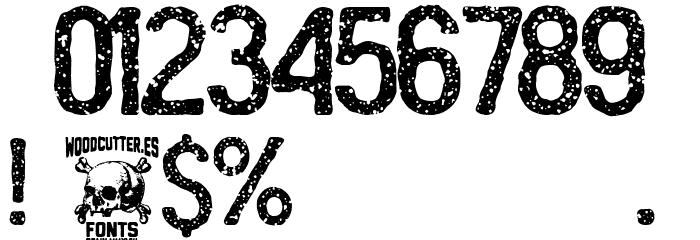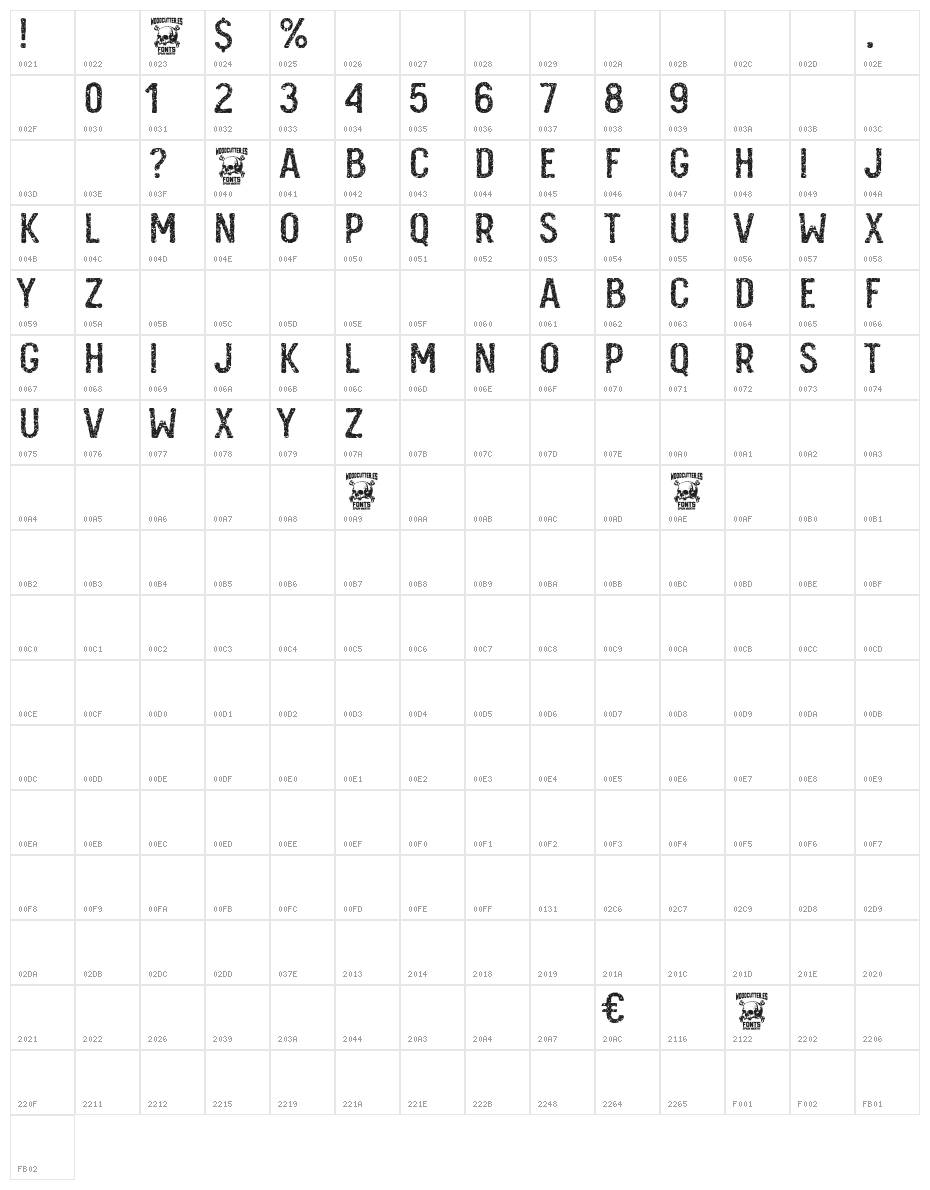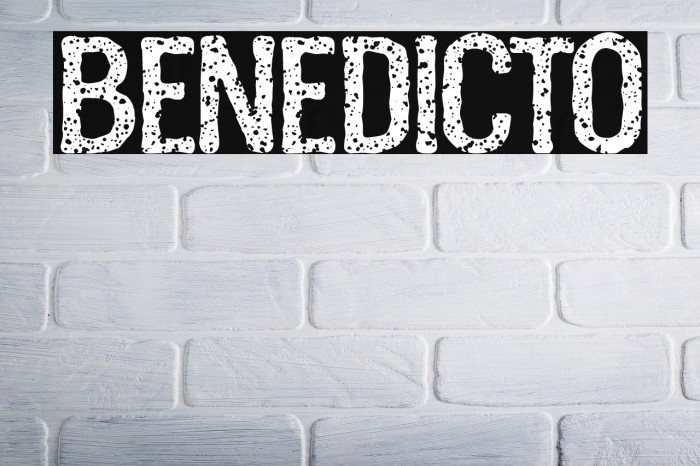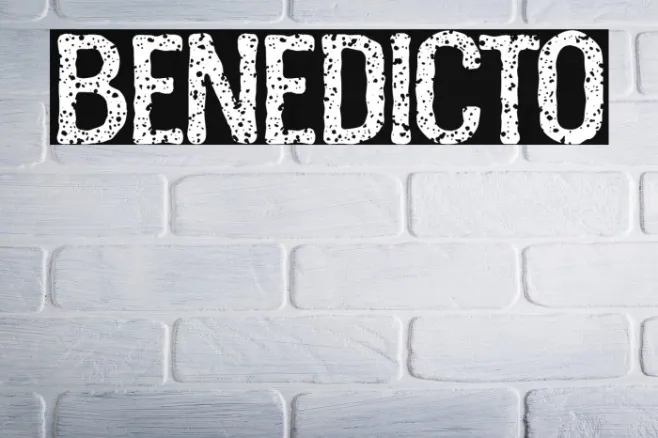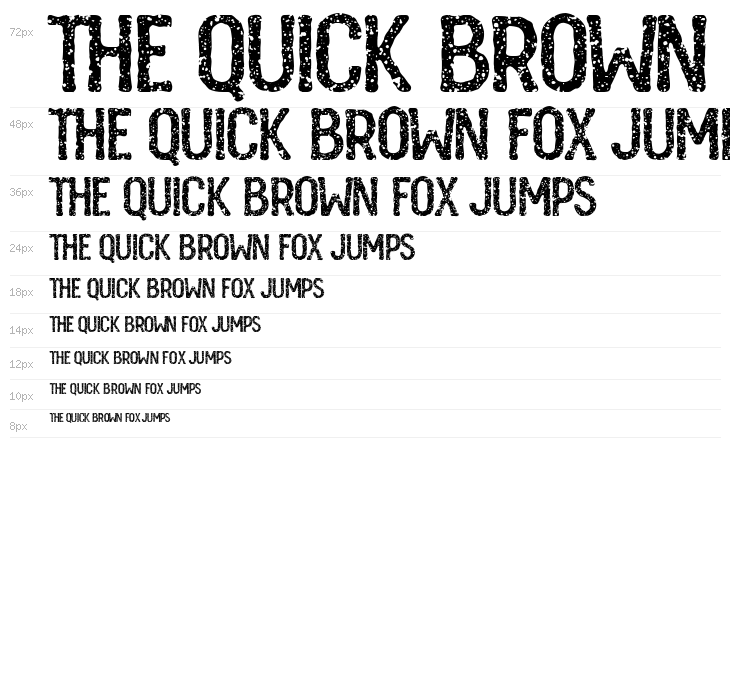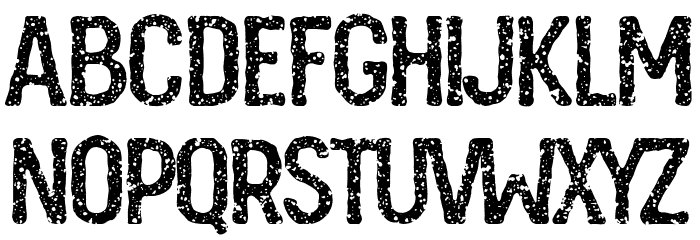
Benedicto Font
Benedicto Description
This font features a bold, textured style with a distressed appearance, giving it a rugged and vintage feel. The characters are uniformly bold, with a speckled pattern that adds a unique, worn-out effect. The uppercase and lowercase letters maintain a consistent height and width, providing a cohesive look. The numbers and special characters follow the same design, ensuring uniformity across all elements. This font's distinctive style makes it ideal for projects that require a strong, impactful visual presence.